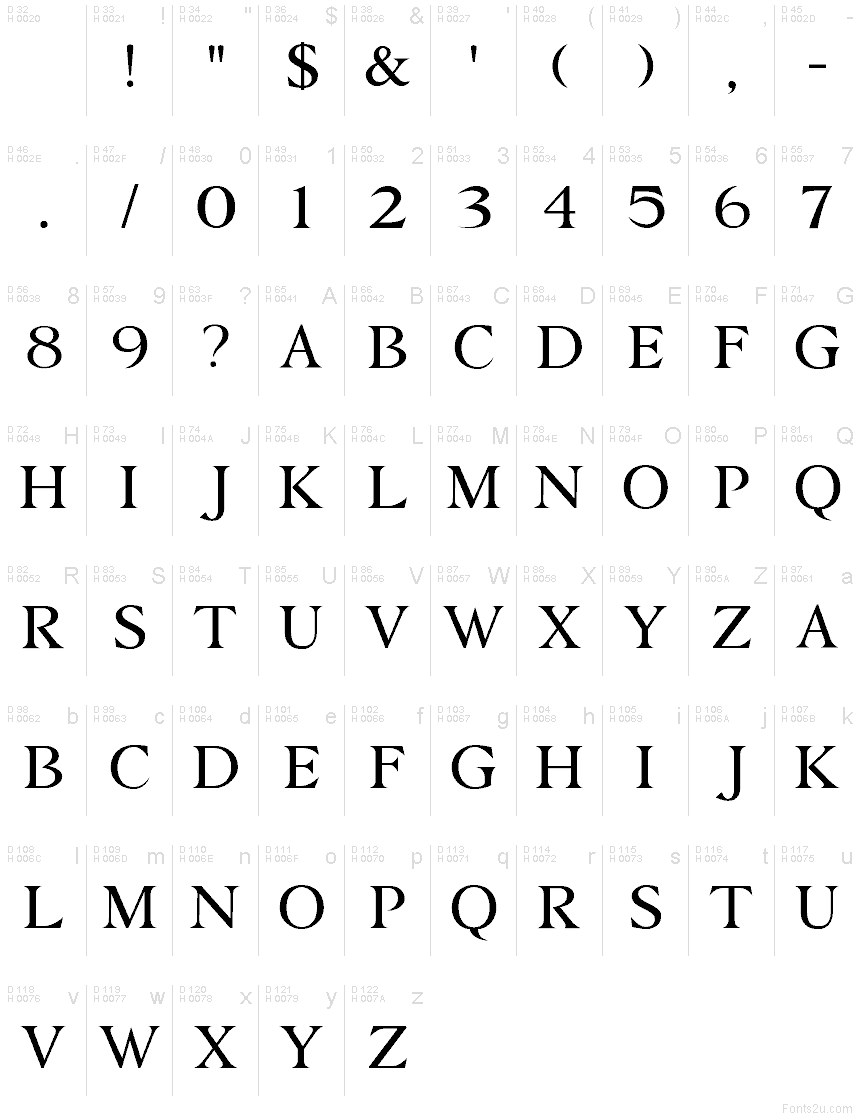
Conquer
Conquer font by Font Kingdom is a bold and daring font that stands out and showcases its power. So many factors play an important role in achieving this effect, especially the sharpness of each character and the unusual heights. These give the already dark letters a new level of boldness that designers can use with pleasure.
Present branding designs for corporations or universities, their online websites, or business cards. This free serif font also allows users to experience an outstanding magazine cover design that includes a selection of texts in different sizes for fine print.